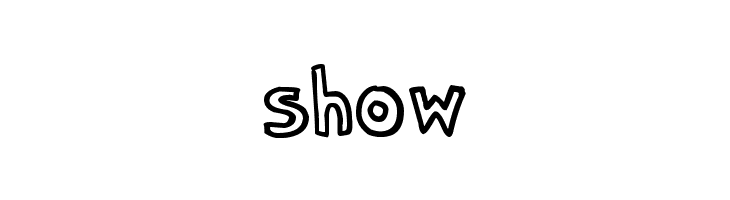
Singapore Sling Expanded Italic Font
- Font: Singapore Sling Expanded Italic
- Weight: Expanded Italic
A playful, hand-drawn font with bold outlines and a cartoonish style.